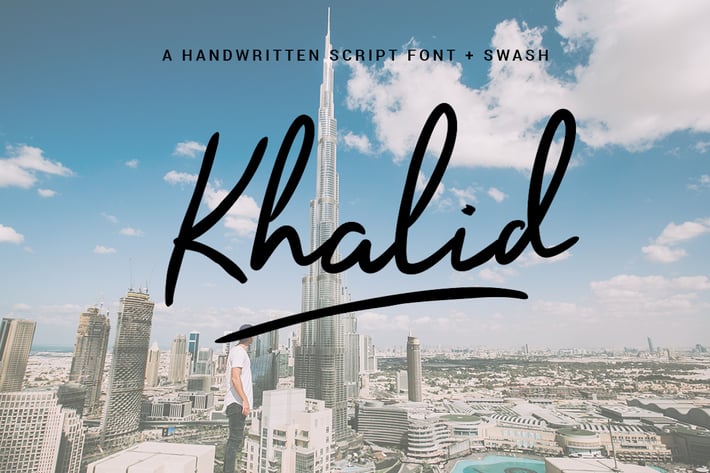
Khalid - Font with Swash
Introducing: Khalid! A luxury, modern handwritten font with a personal charm. With swash and regular style, Khalid is perfect for photography, watermark, social media posts, advertisements, logos & branding, invitation, product designs, label, stationery, wedding designs, product packaging, special events or anything that need handwriting taste.
+ Khalid with Regular style
+ Khalid with Swash